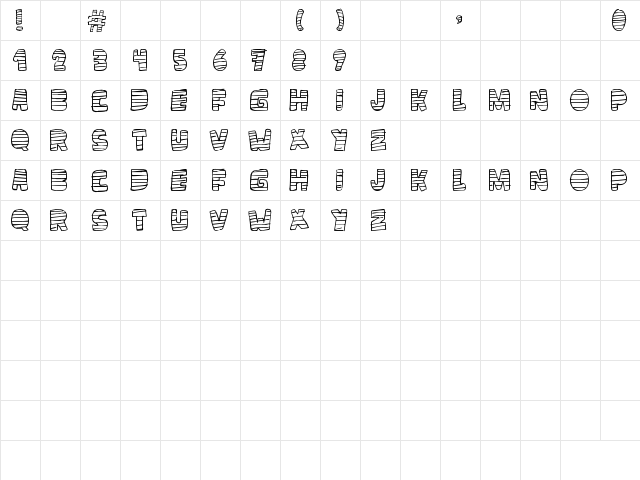
loco tv Regular
Design Context for loco tv Typeface
loco tv is a composed and adaptable typeface that performs quietly and consistently across a wide range of design contexts.